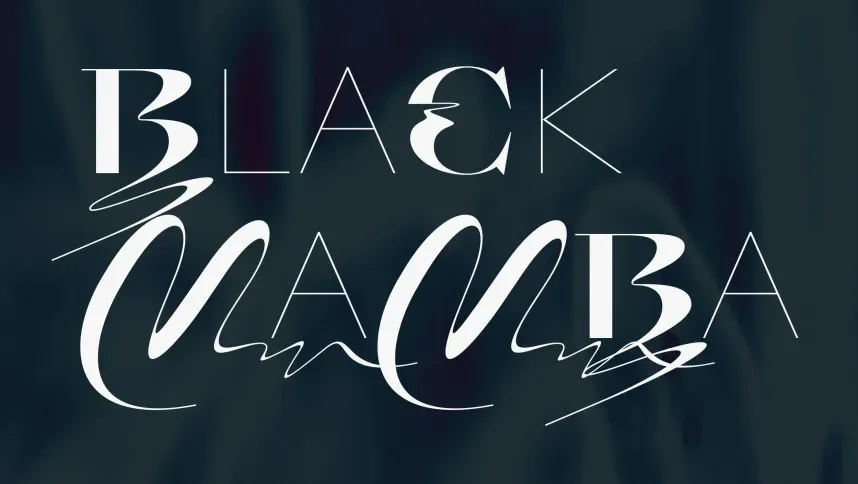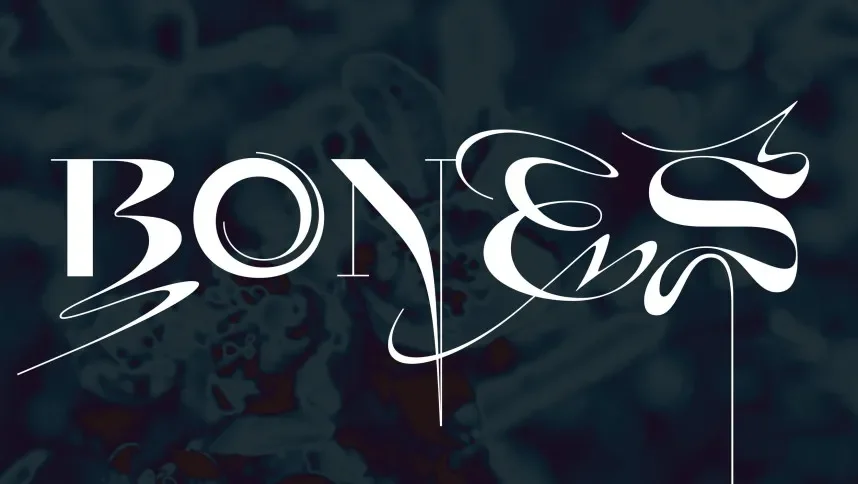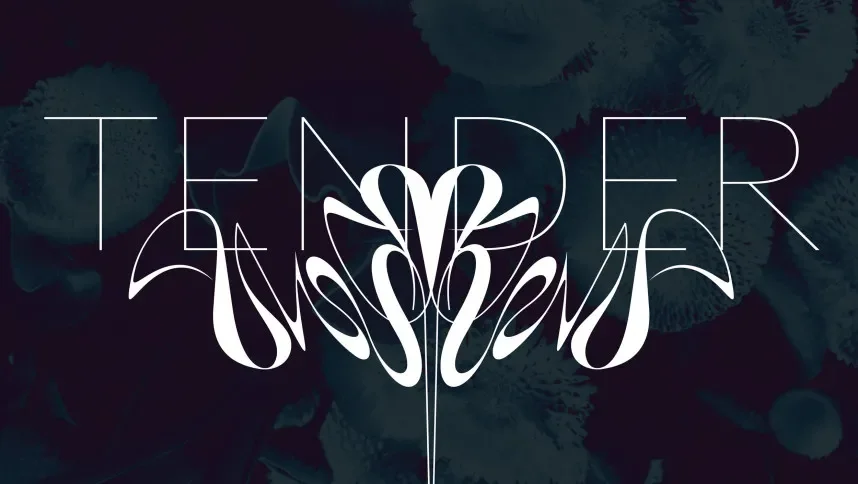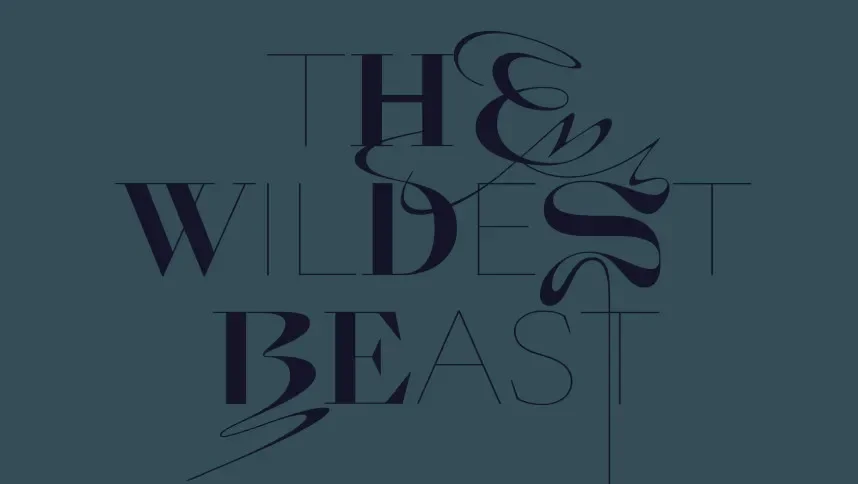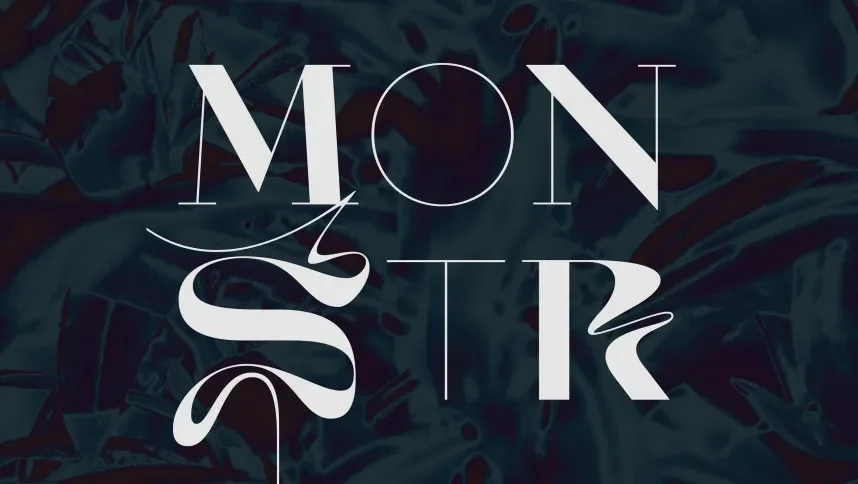
Black Mamba Font is a condensed display typeface created to improve readability and boldness in sports, streetwear, and urban-themed branding projects. Its tight letter spacing and sharp edges provide a striking visual impression.
The typeface features straight, angular strokes with subtle curves in select glyphs. High legibility and uniform stroke widths make it suitable for large headings, jerseys, logos, and social media graphics. Ligatures and stylistic alternatives allow customized typography for dynamic layouts.